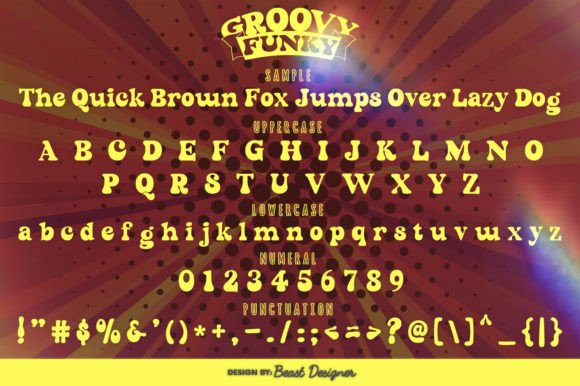
The Groovy Funky Font: A Retro Revival for Your Designs
Groovy Funky is a fun, retro-style display font that’s perfect for funky designs, and it’s also great for creating t-shirts, tote bags, hats, stickers, logos, cards, and more! In this article, I’ll share my experience with this amazing font, its features, and how to use it on different platforms.
- ✨ Unique and quirky design that’s perfect for retro-style designs
- ✅ Highly legible, even at large sizes
- 🎉 Fun and playful vibe that’s sure to grab attention
- 💻 Great for both digital and print designs
While Groovy Funky is an amazing font, there are a few things to keep in mind: 🤔
- ⚠️ It may not be the best choice for body text, as it’s a display font and can be overwhelming for longer blocks of text
- ⚠️ Some characters may not work well at very small sizes, so it’s best to use it at larger sizes
The Designer Inspiration
Groovy Funky was inspired by the funky, retro-style designs of the 1960s and 1970s. The font’s creator was inspired by the iconic designs of the era, from album covers to posters and advertisements. They wanted to create a font that would capture the fun, playful vibe of that era, while also being highly legible and versatile.
Q: What is Groovy Funky font?
A: Groovy Funky is a fun, retro-style display font perfect for funky designs, t-shirts, tote bags, hats, stickers, logos, cards, and more!